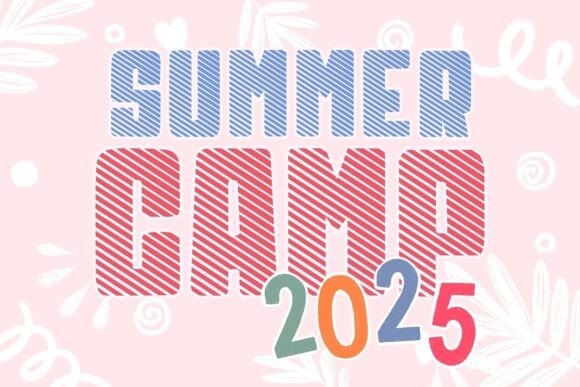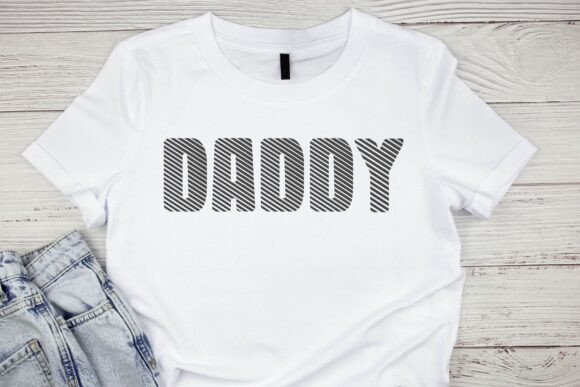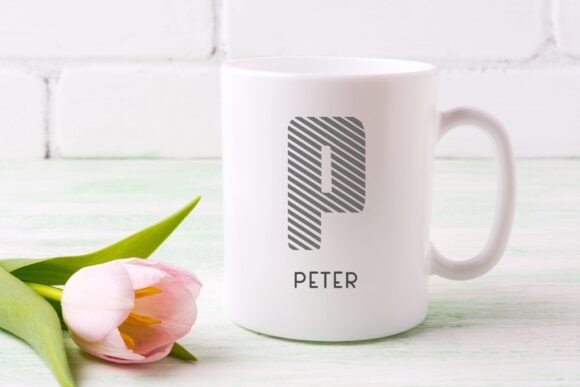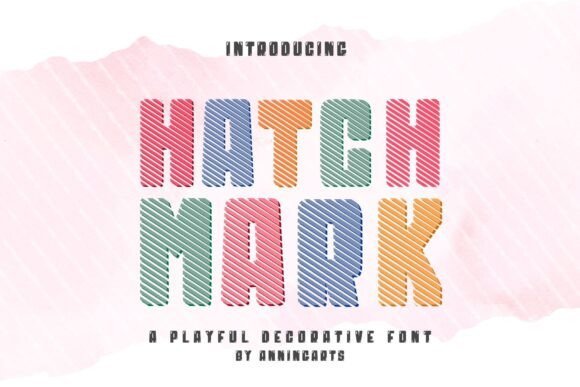
Introduction to Hatch Mark Font
Hatch Mark is a bold and playful decorative font featuring diagonal hatch lines for a unique striped effect.
Perfect for eye-catching designs, this display typeface is great for logos, posters, invitations, social media graphics, and DIY crafts Whether you’re creating vibrant branding, kids’ projects, or cheerful event designs.
Key Features of Hatch Mark Font
Why Choose Hatch Mark Font?
Hatch Mark Font offers exceptional quality and versatility, making it a valuable addition to your design toolkit. Whether you’re creating for personal projects or commercial use, Hatch Mark Font delivers professional results.